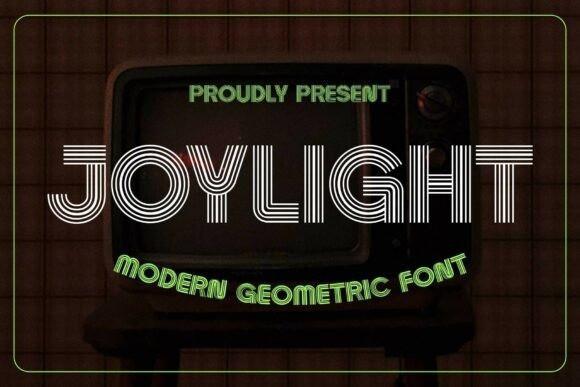
Joylight Font a captivating multilinear display font. This typeface features heavy, geometric block letterforms uniquely characterized by their concentric parallel tracking lines, creating an eye-catching neon-glow or vintage broadcast effect that bridges the gap between 1980s synthwave aesthetics and modern digital club branding. With its dense structural presence and rhythmic maze-like linework, Joylight is the premier choice for independent electronic music album covers, boutique arcade or bar identities, retro podcast covers, and high-impact “techno-and-cyberpunk” social media titles.